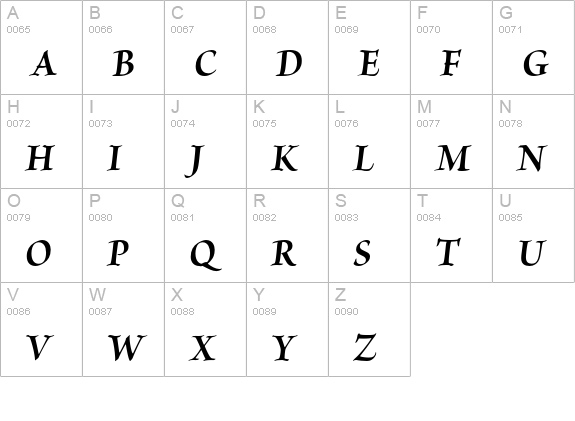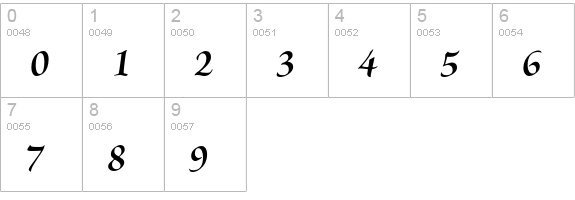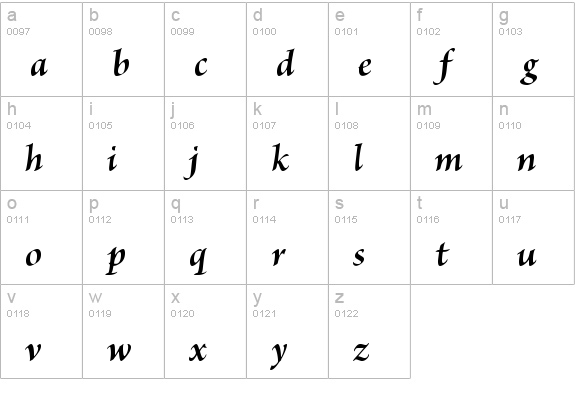
Brioso Pro Bold Italic Subhead is a strong, high-contrast, italic variant in the Brioso typeface family \xE2\x80\x94 well suited to headlines, attention-grabbing titles, and strong calls-to-action.
Brioso Pro Bold Italic Subhead font exudes a sense of elegance and sophistication, making it perfect for adding a touch of flair to your designs. Its bold and italicized style commands attention, making it ideal for subheadings, titles, and other prominent text. The sharp, clean lines of Brioso Pro Bold Italic Subhead font give it a modern and professional look that will elevate any project. The best part? Brioso Pro Bold Italic Subhead font is freely available to download at FontsMarket.com. Now you can access this stunning font for all your design needs without any cost. Whether you're working on a branding project, editorial design, or web design, Brioso Pro Bold Italic Subhead font will help you make a bold statement. Don't miss out on the opportunity to enhance your designs with this versatile and stylish font. Download Brioso Pro Bold Italic Subhead font today and take your projects to the next level!